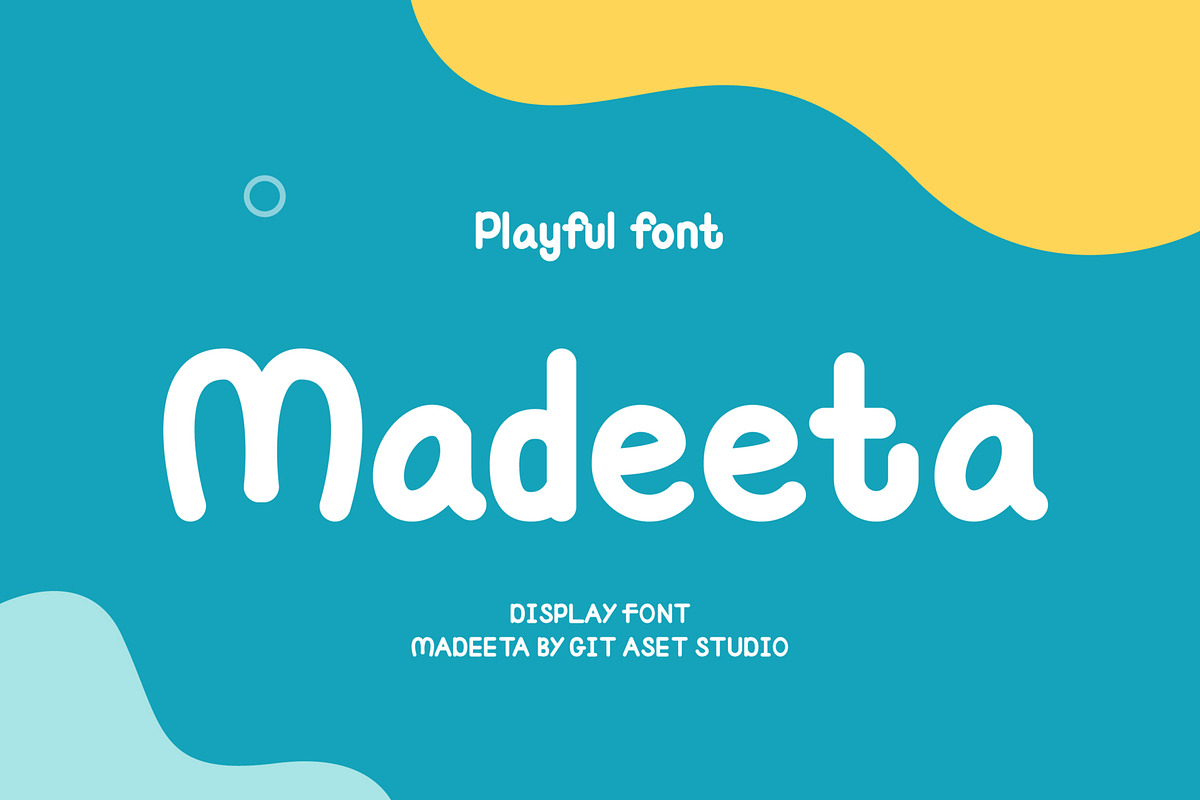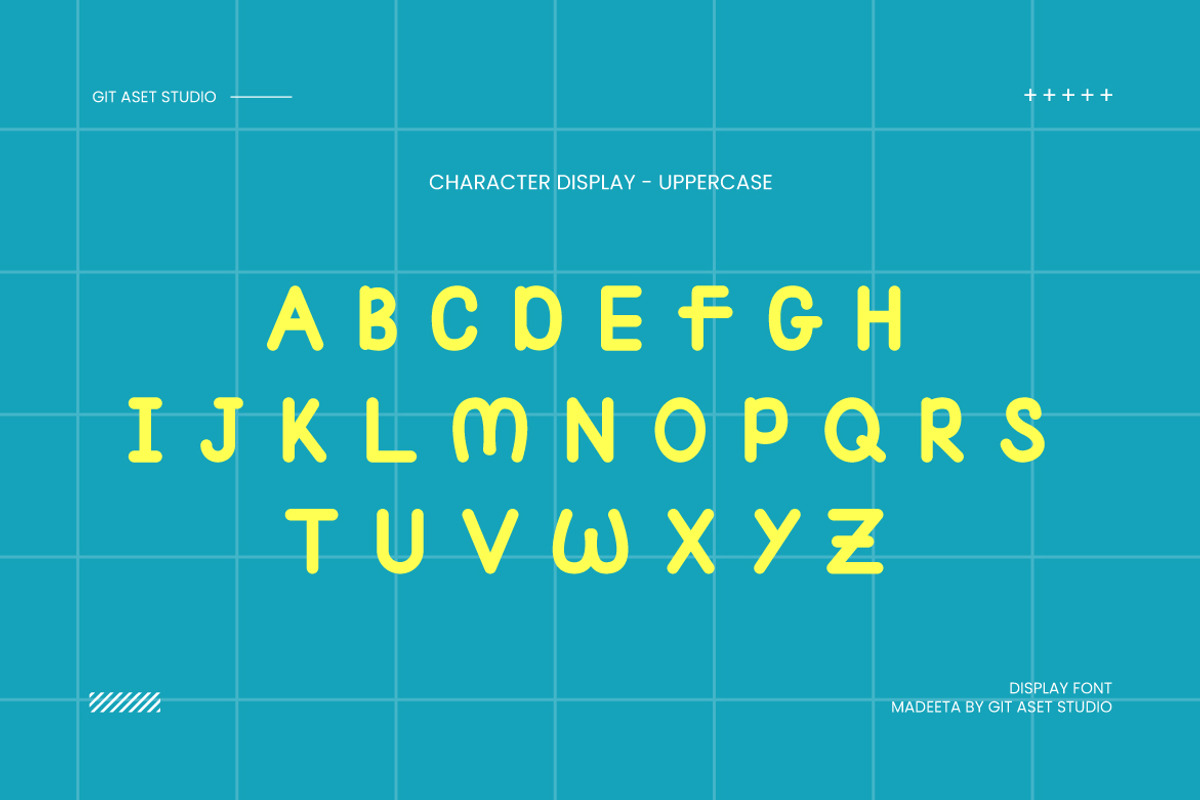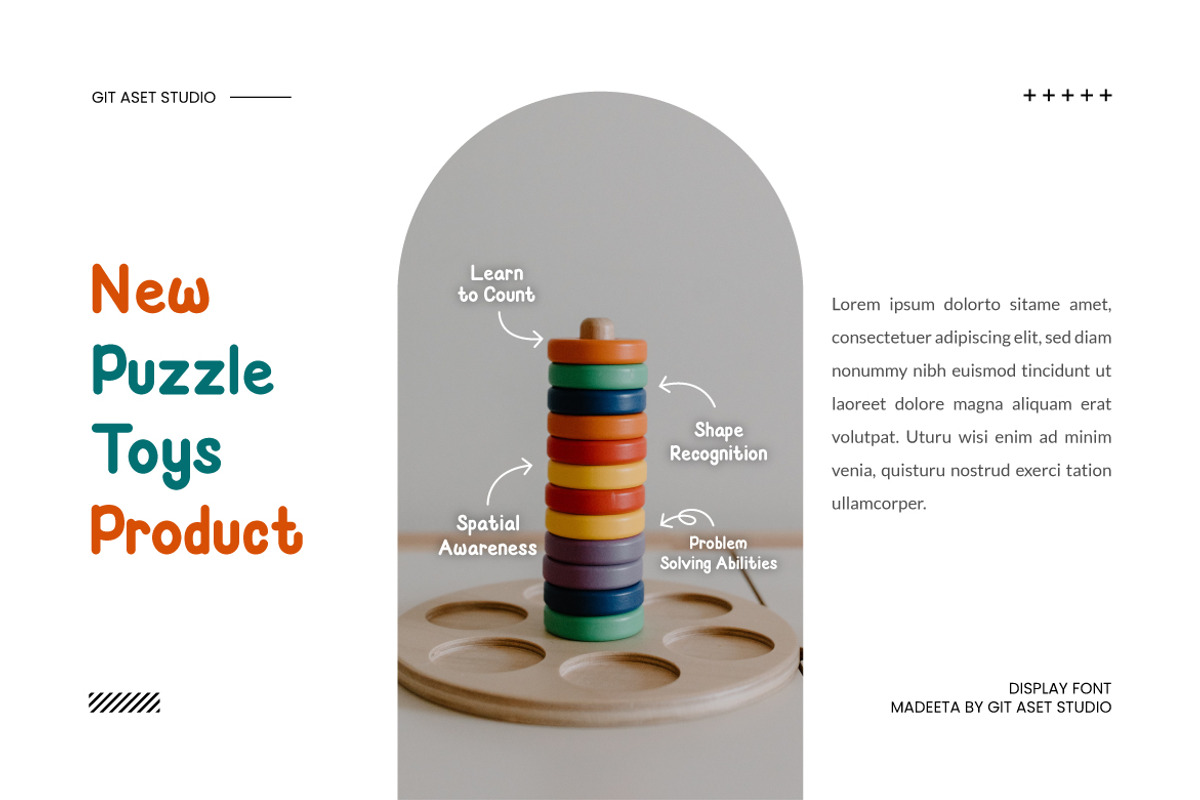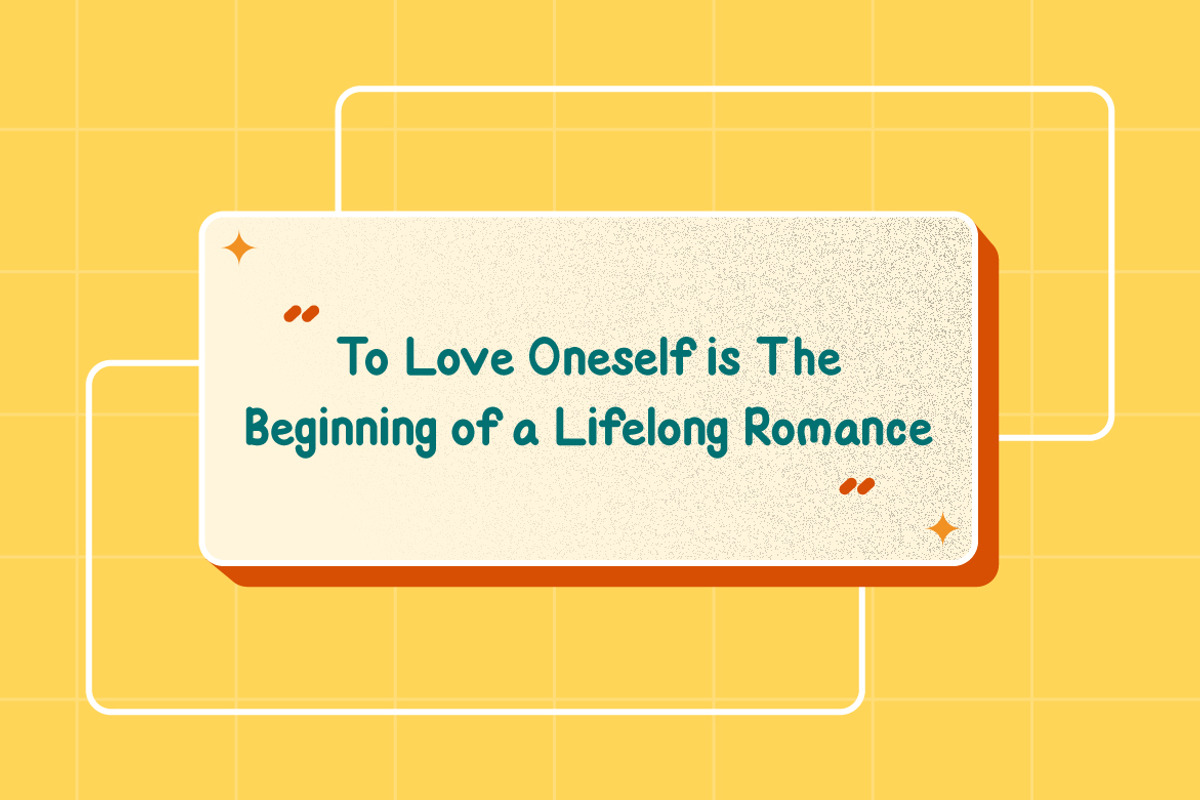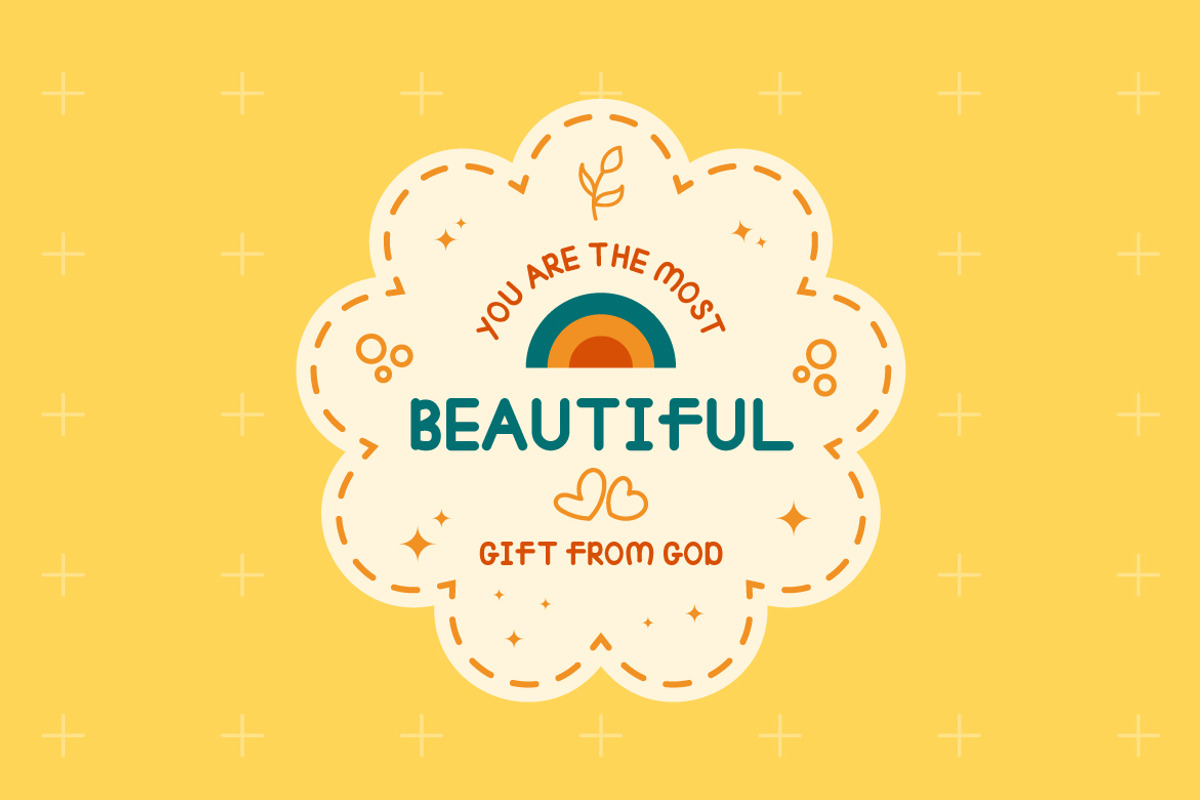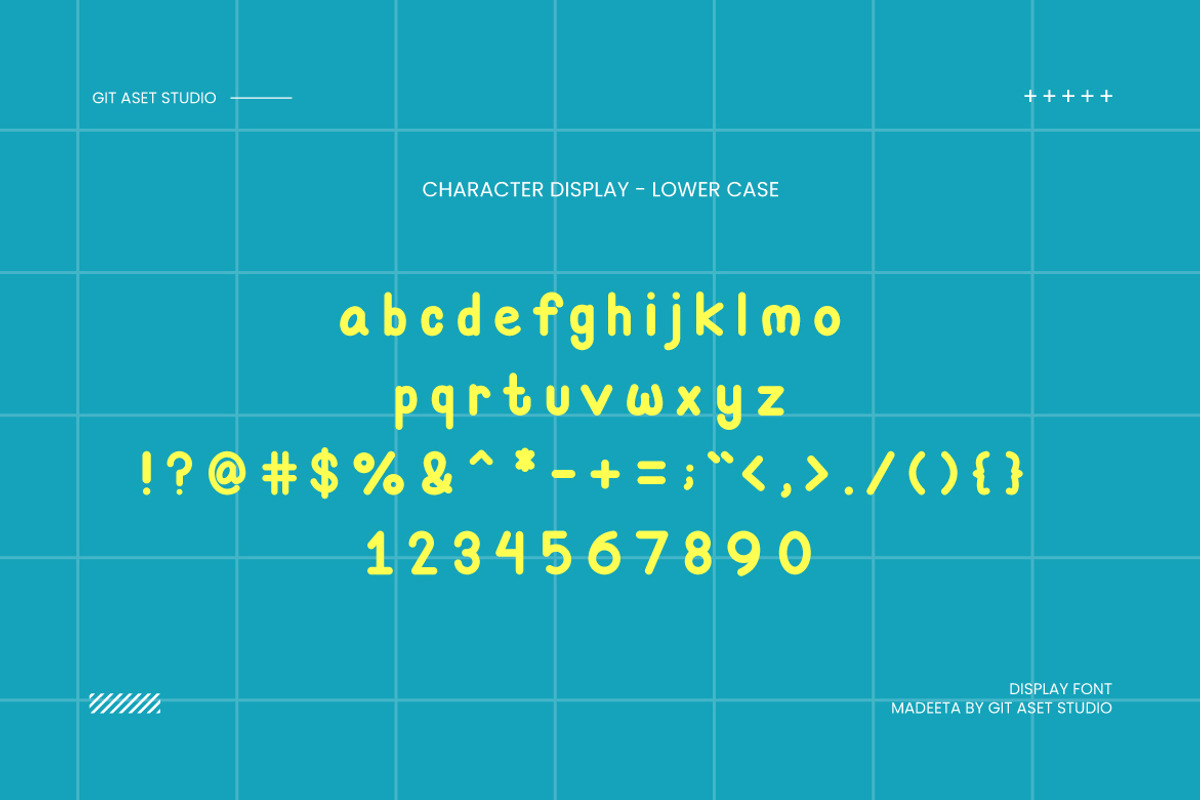
Madeeta - Display Playful Font
Introducing our new playful font asset! With its unique style and eye-catching design, this font is perfect for adding a touch of fun and excitement to your projects. Whether you're creating a poster, a website, or even a greeting card, this playful font will surely make your design stand out.
With its playful and eye-catching nature, this font asset is perfect for a wide array of design projects. From children's book illustrations to party invitations, from website headers to social media graphics, the possibilities are boundless. Let your imagination soar as you make use of this playful font to create delightful and engaging designs.